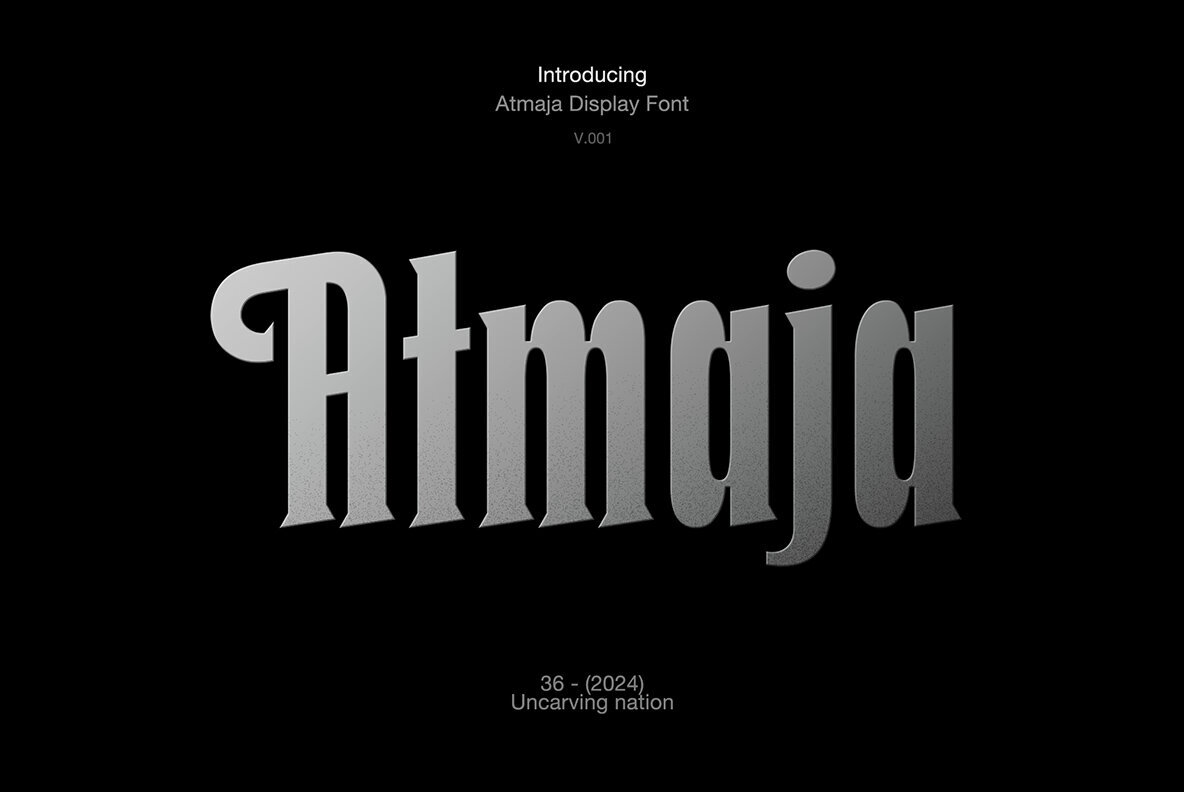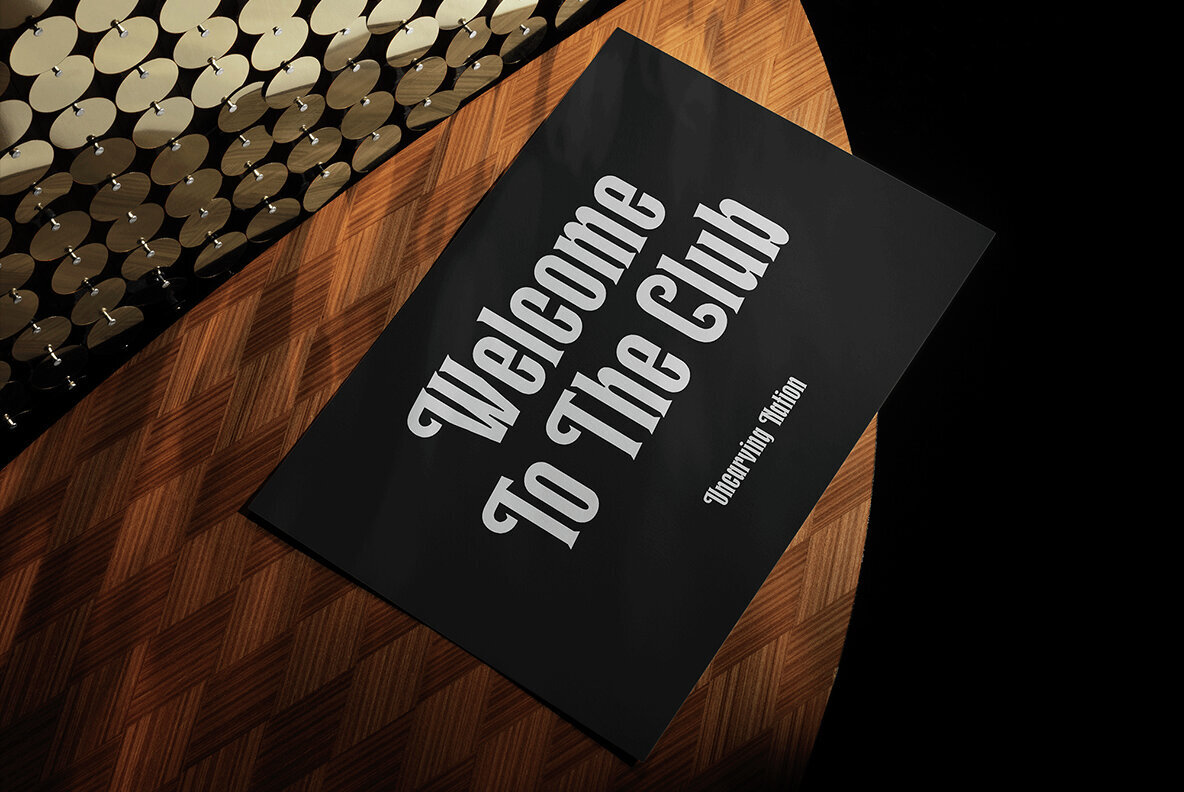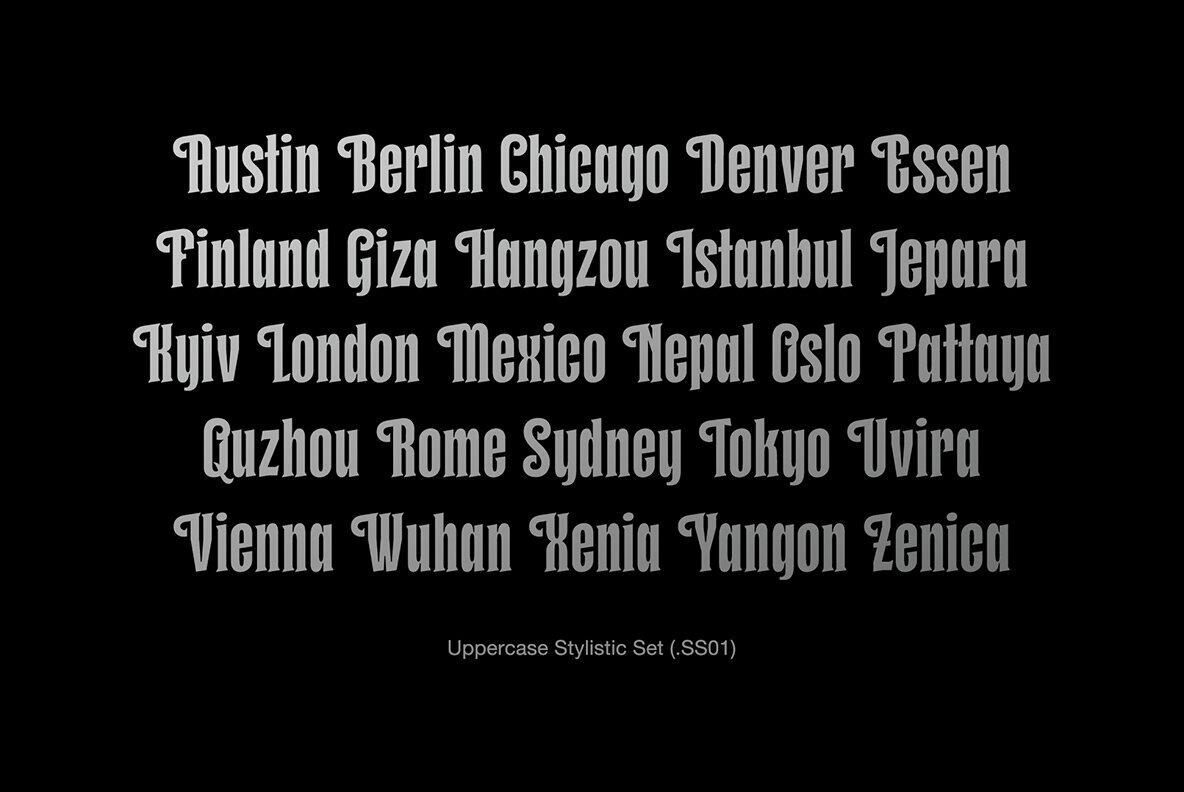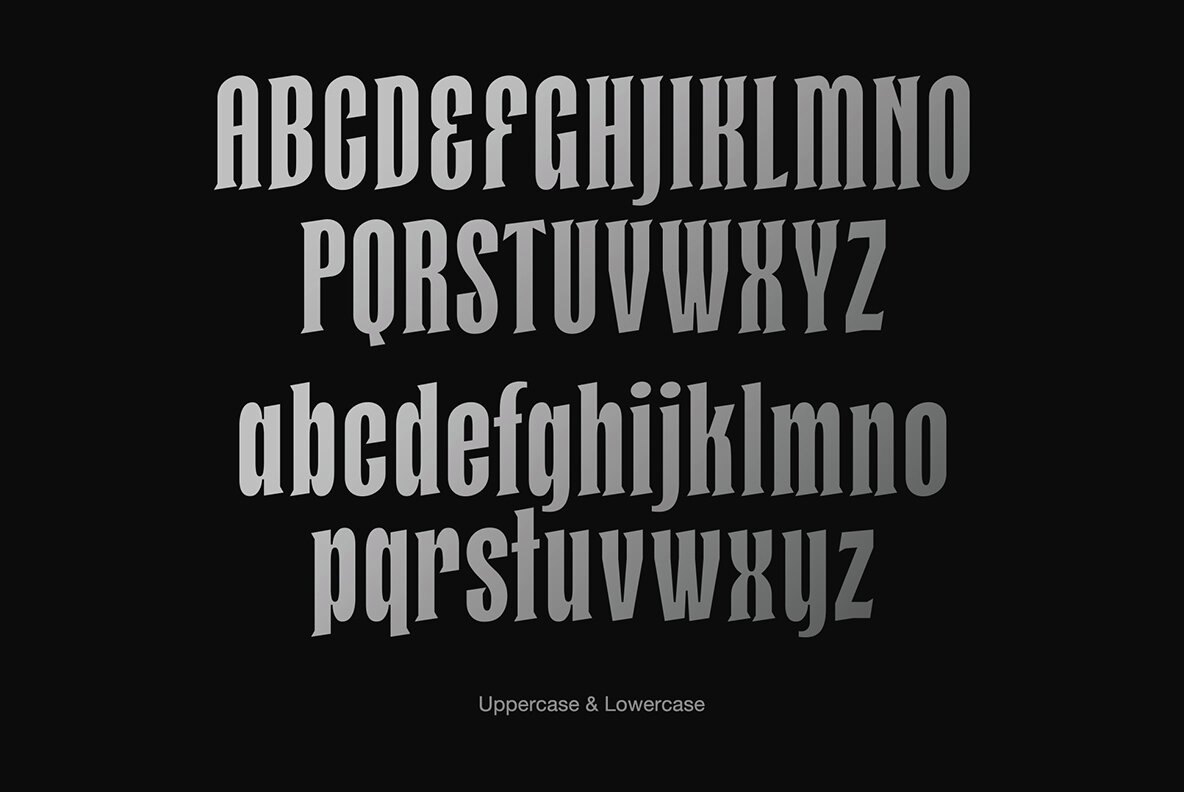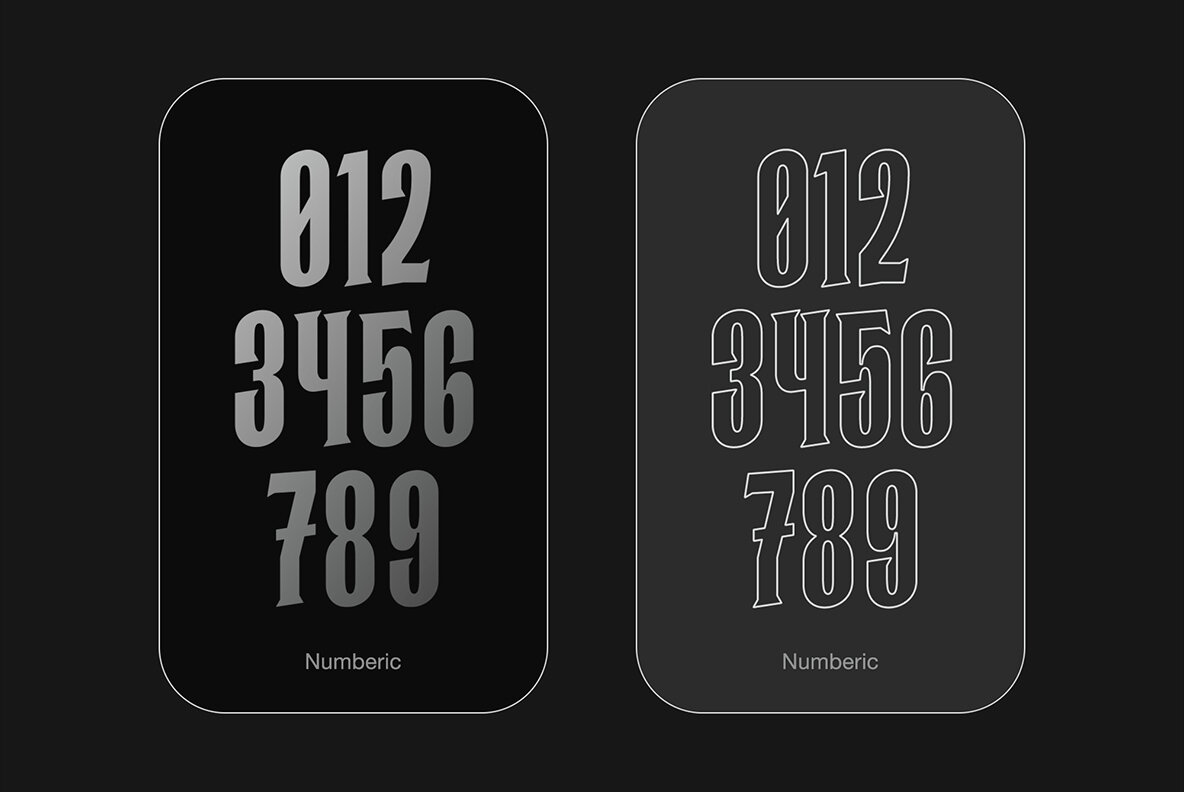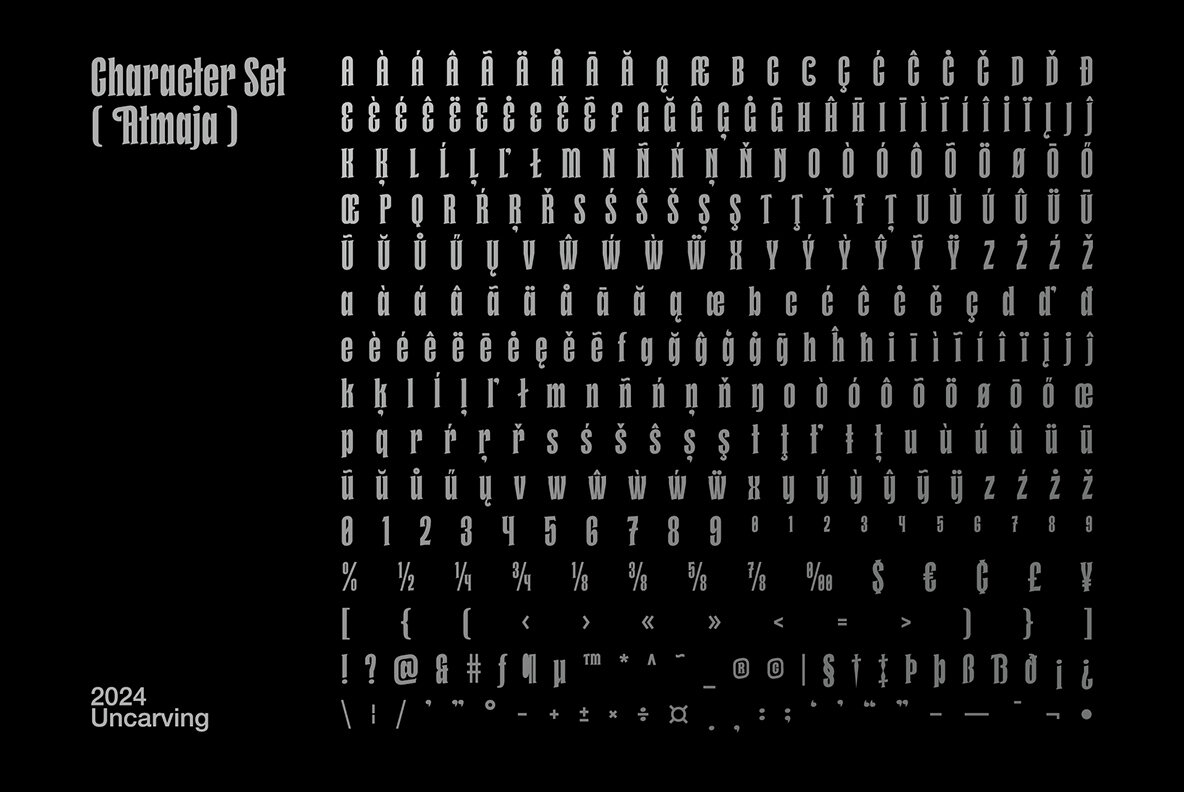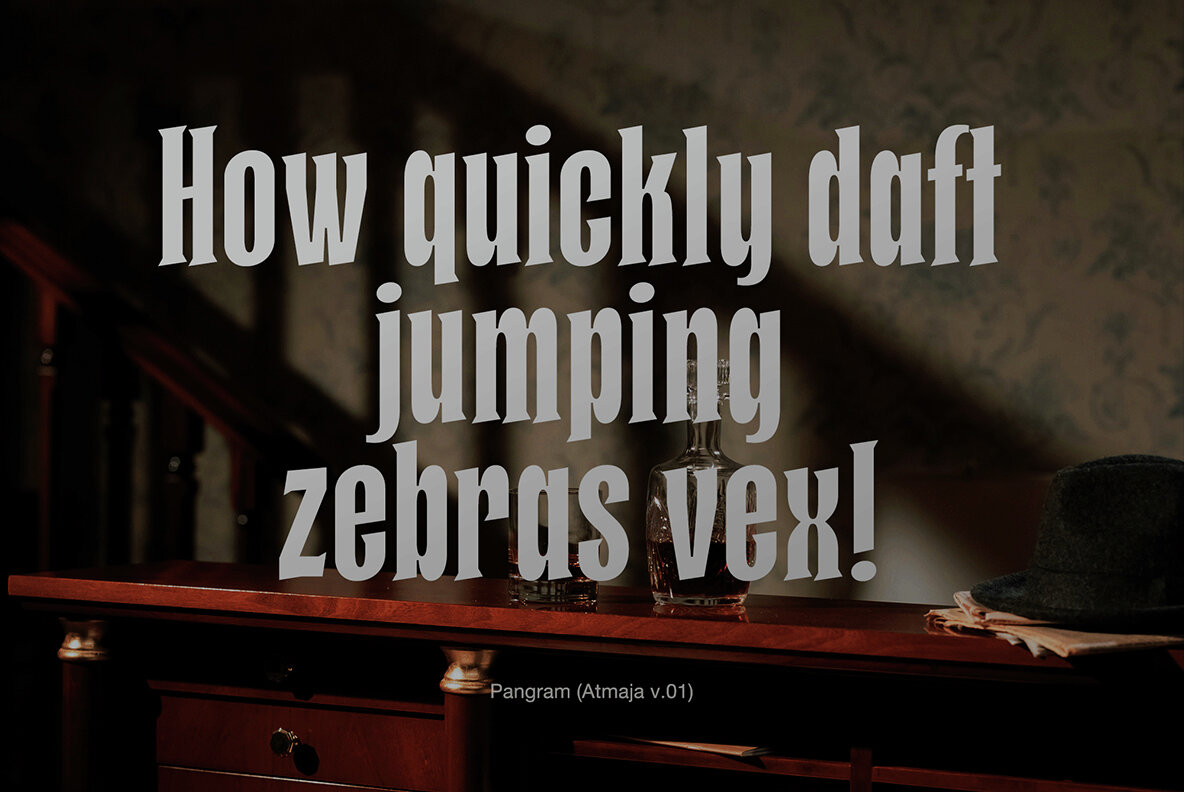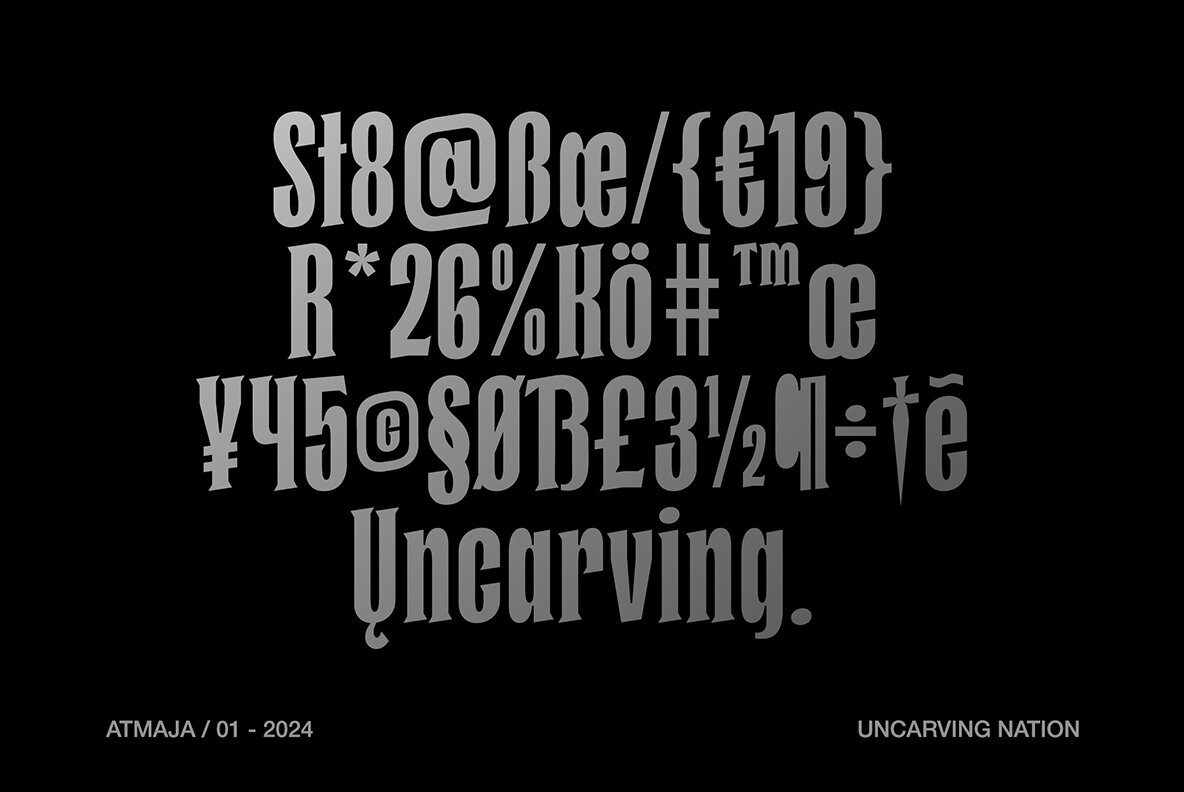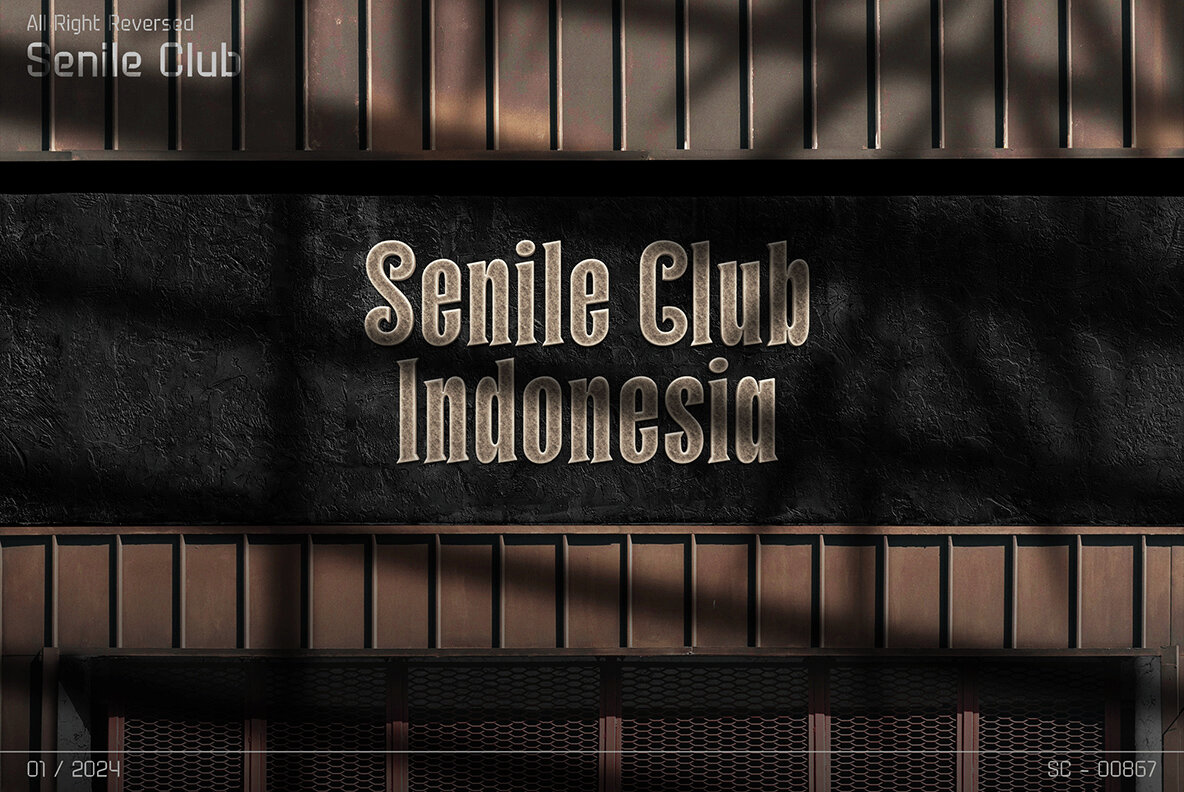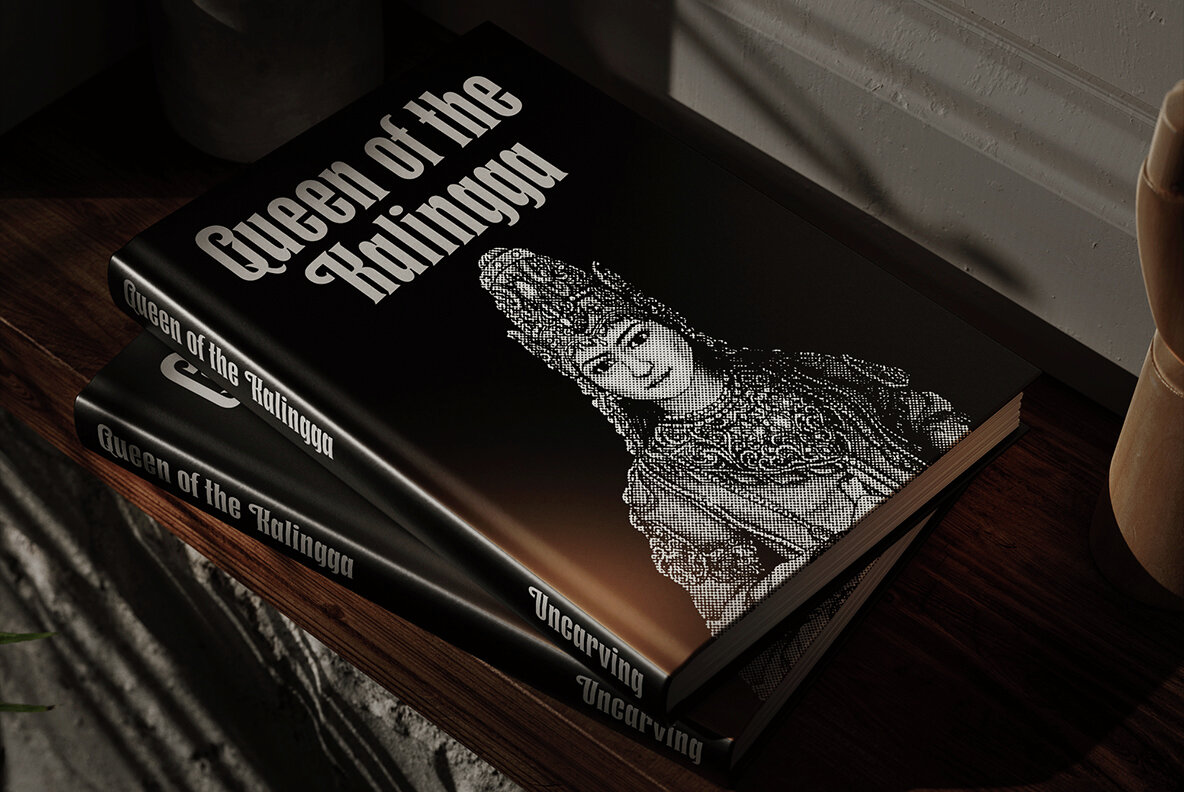
Atmaja Font
Atmaja Regular
Experience the unique elegance of Atmaja, a distinctive display serif font that marries traditional Garalde charm with a fresh, contemporary twist. Its classic essence is reimagined to offer a blend of artistic richness and modern versatility that gives Atmaja a timeless appeal. Perfectly suited for headlines and titles, Atmaja shines when used at larger sizes, leaving a bold impression without overshadowing its practicality. Its adaptability makes it an excellent choice for a range of design projects, ensuring that your ideas are communicated with style and sophistication.Atmaja: A Timeless Display Serif